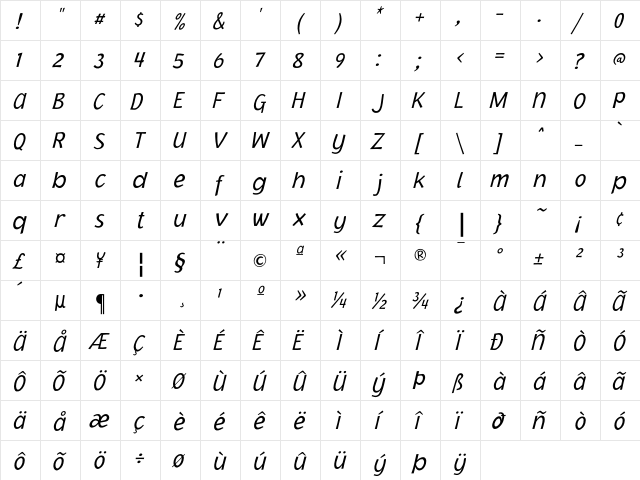
JacobyICG LightItalic
Design Context for JacobyICG Typeface
JacobyICG takes a measured approach to typography — its balanced proportions and neutral character make it a reliable workhorse for both digital and print work. Its italic angle brings a sense of urgency and motion to the letterforms. The delicate stroke weight brings airiness and refinement to layouts.
Pro Tip: Use JacobyICG for emphasis, pull quotes, and subheadings where its slanted energy can add rhythm to the layout.